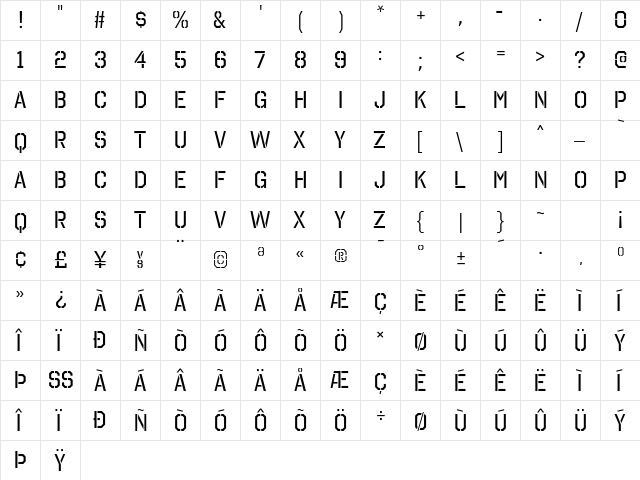
Octin Stencil Regular
Design Context for Octin Stencil Typeface
Octin Stencil borrows the utilitarian aesthetic of stencil lettering, with its characteristic cutaways and no-frills construction lending an industrial edge.
A strong choice for packaging that needs edge, warehouse aesthetics, and rough-and-ready visual identities.
Pro Tip: Use Octin Stencil at large sizes on packaging, posters, or apparel where the stencil cutaways read clearly. Avoid small sizes where those gaps become visual noise.